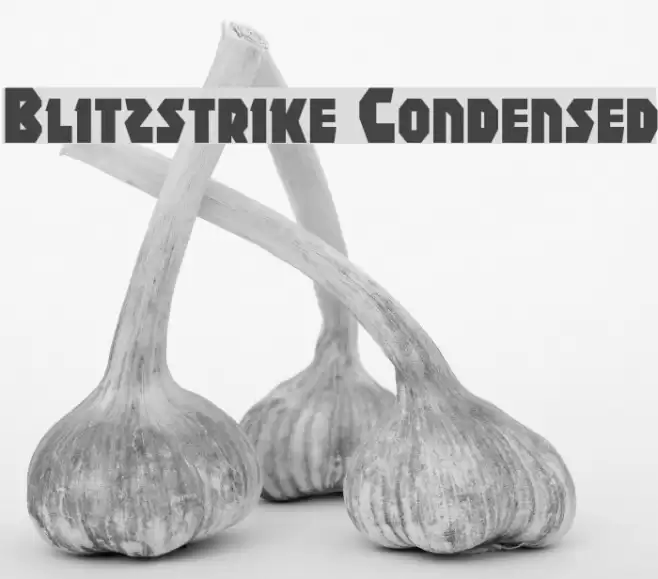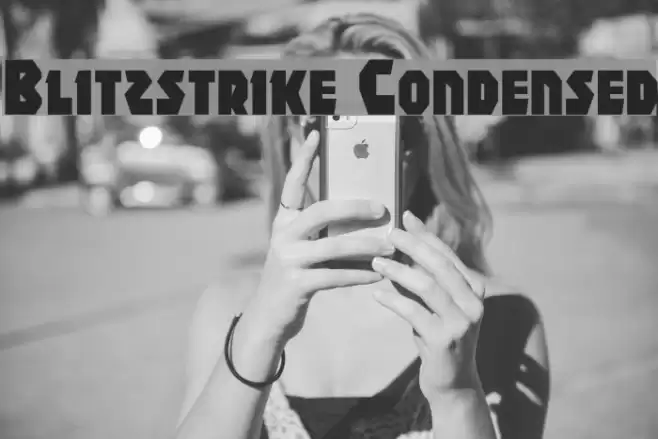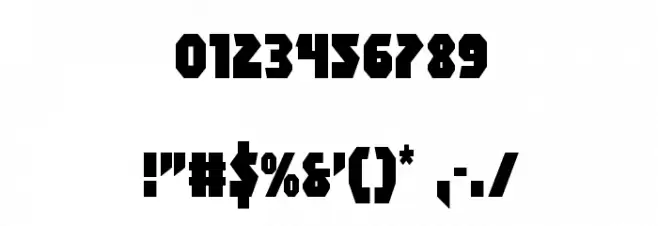
Blitzstrike Condensed Font
Blitzstrike Condensed Description
This font features a bold and striking design with a condensed width, making it ideal for impactful headlines and attention-grabbing text. The characters are sharply angular, with a geometric style that conveys a sense of strength and modernity. The uppercase and lowercase letters maintain a consistent height, contributing to a uniform appearance. The numerals and special characters are designed to match the boldness of the alphabet, ensuring cohesive typography across different uses. Its unique style is suitable for projects that require a strong visual presence.
A bold, angular, and condensed font ideal for impactful headlines from Uncategorized fonts.
- Proposed Projects: Suitable for branding, posters, sports team logos, and any project needing a bold, modern aesthetic.